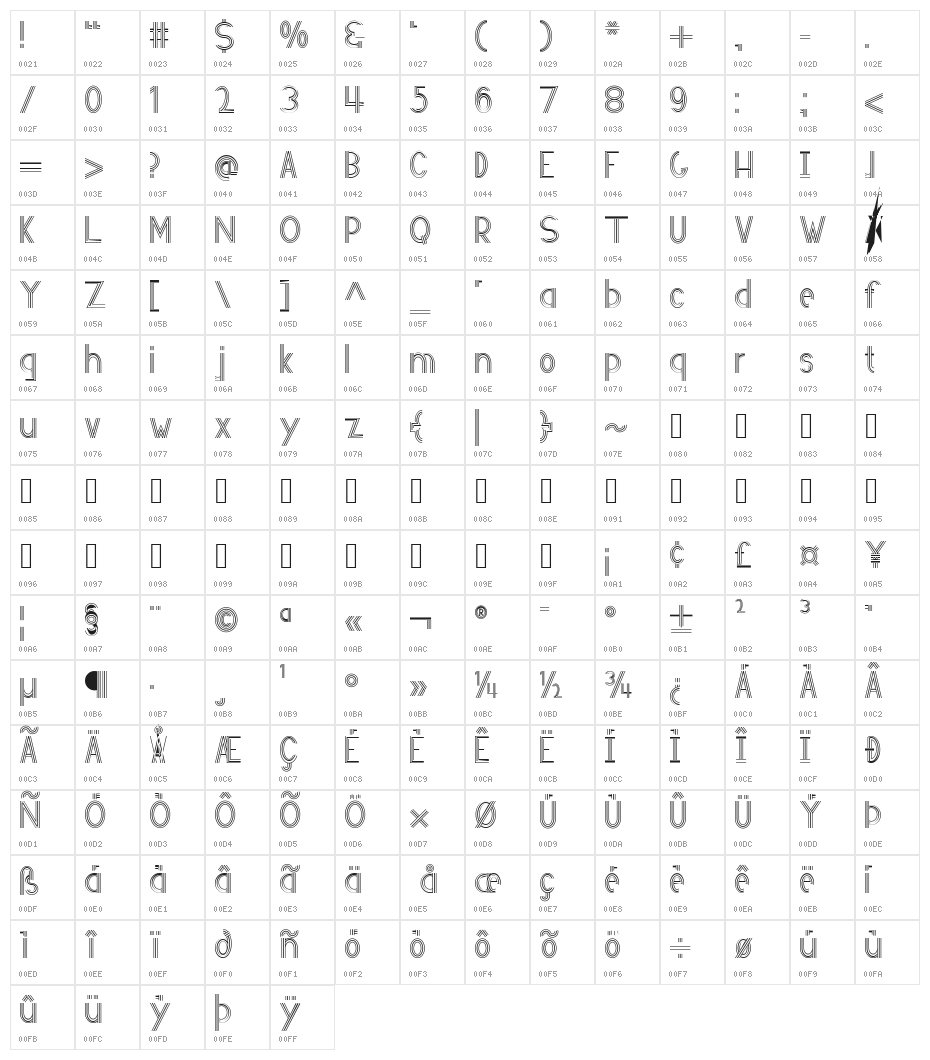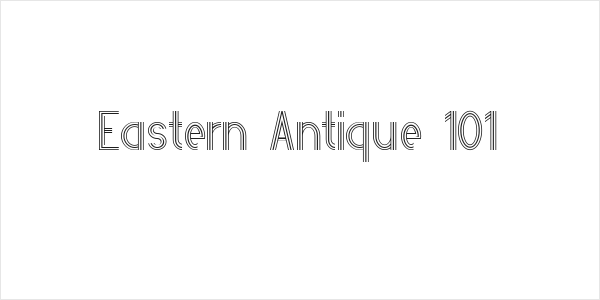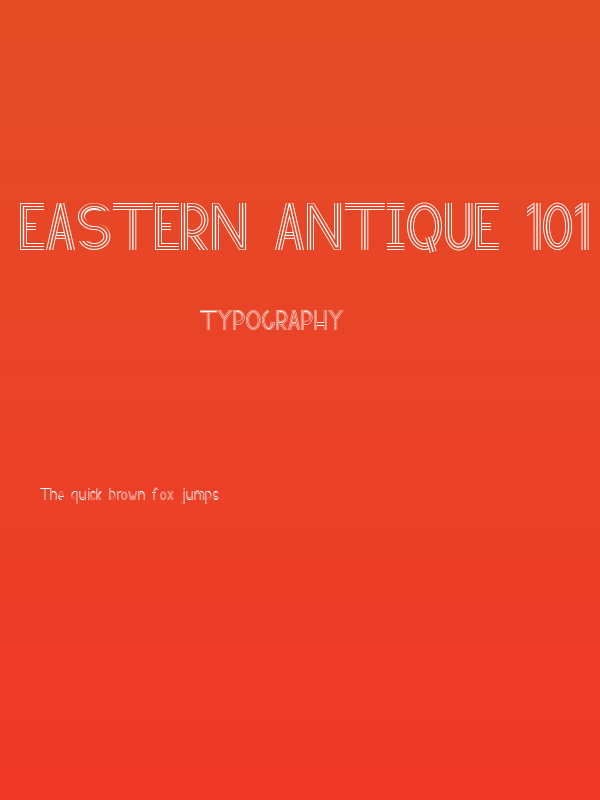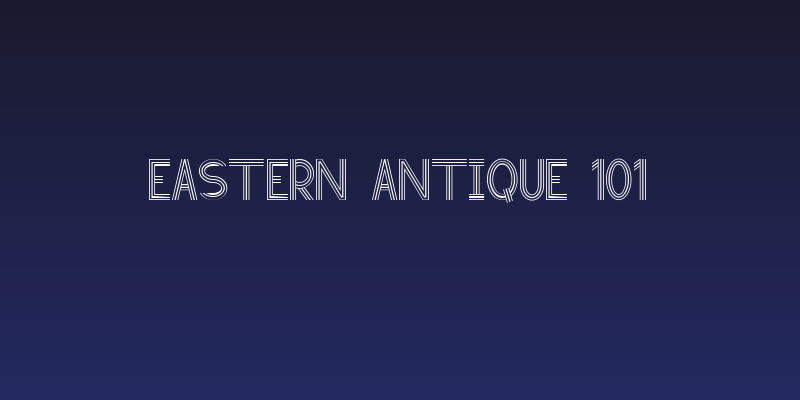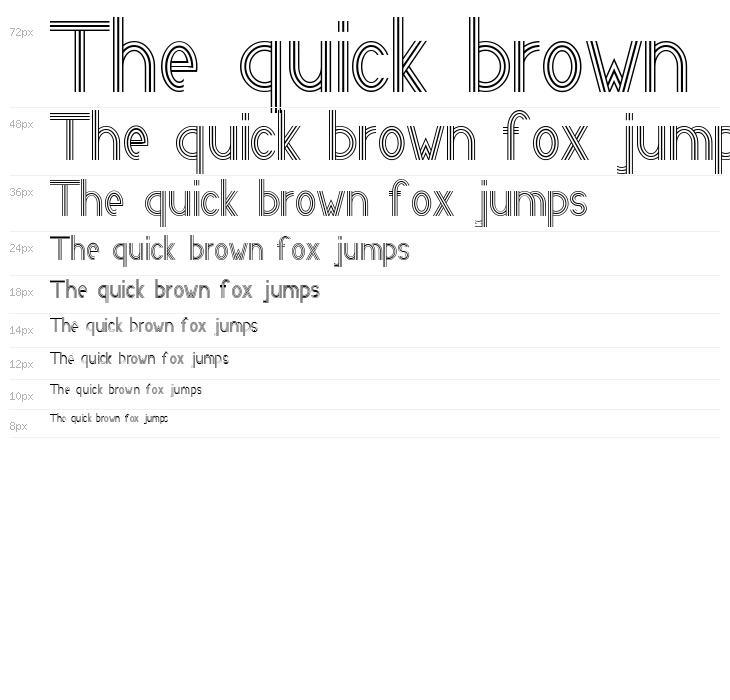
Eastern Antique 101 Font
Eastern Antique 101 Description
This font features a unique and intricate design with multiple parallel lines forming each character, creating a sense of depth and complexity. The geometric structure is consistent across uppercase, lowercase, numerals, and special characters, giving it a cohesive look. The style is reminiscent of art deco influences, with a modern twist that makes it suitable for contemporary design projects. The characters are evenly spaced, and the lines are of uniform thickness, providing a balanced and harmonious appearance.
| Proposed Projects | Ideal for branding, posters, and editorial design where a striking and sophisticated look is desired. |